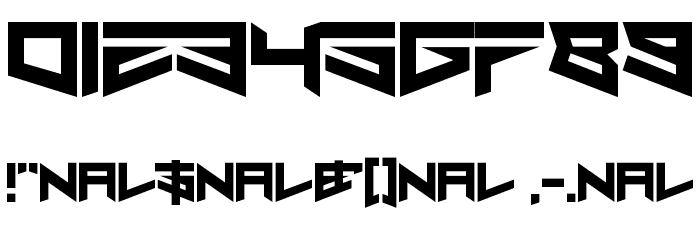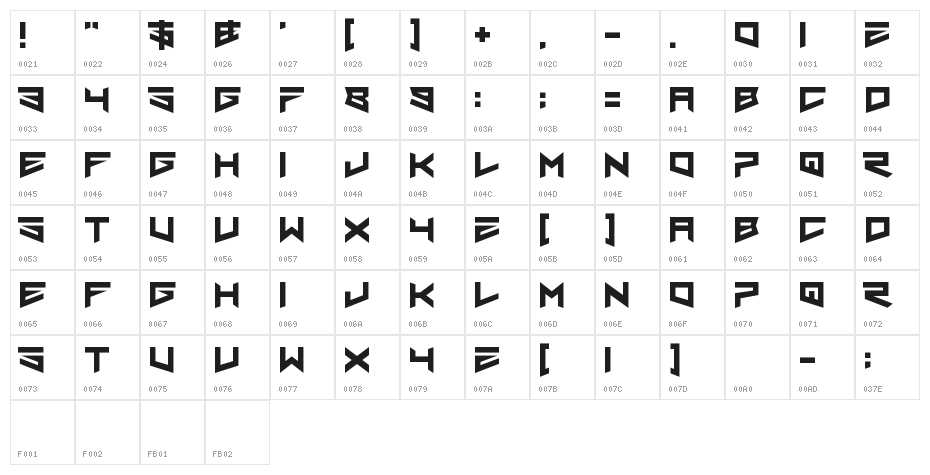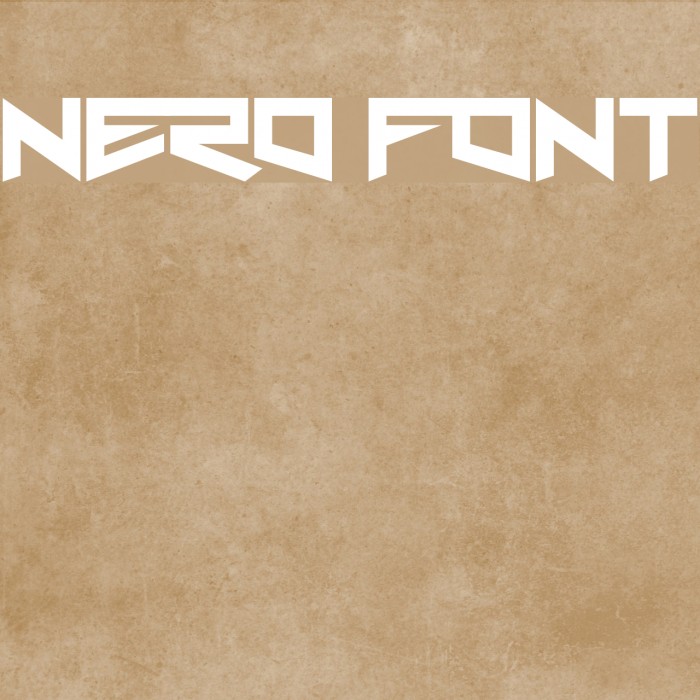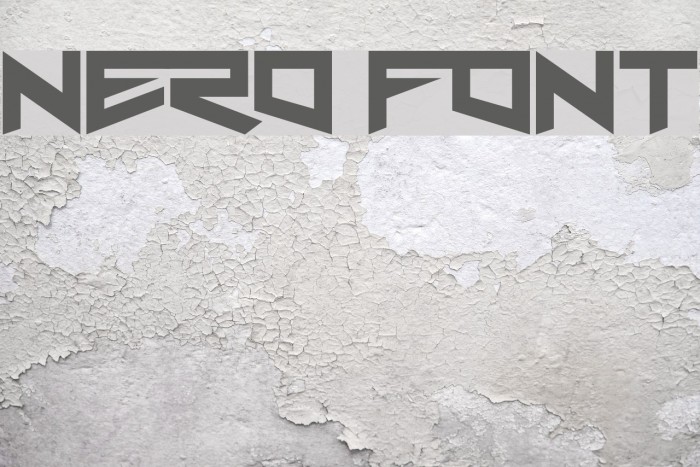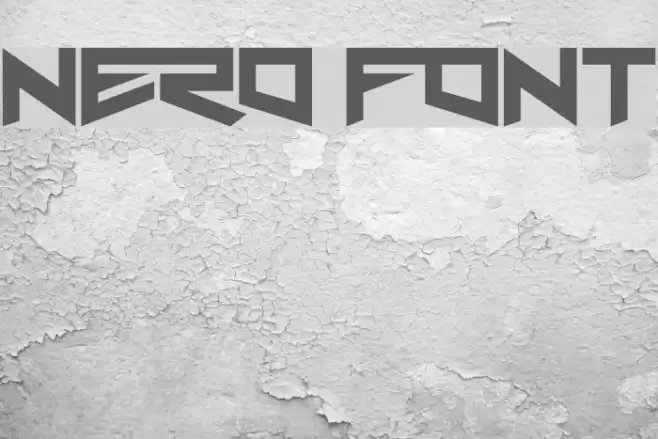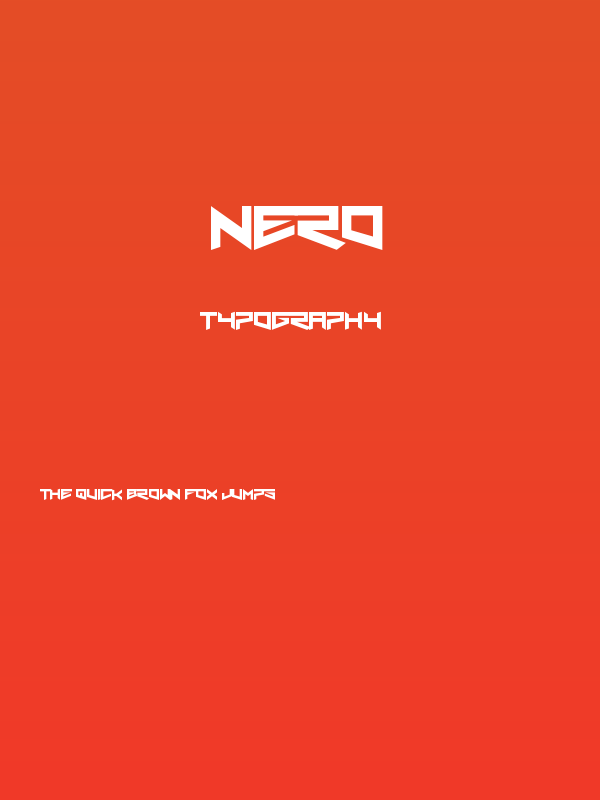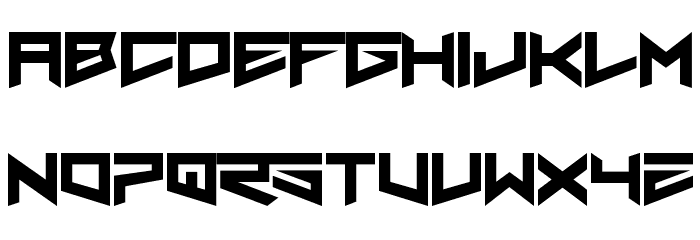
Nero Font
Nero Description
This font features a bold, angular design with sharp edges and a futuristic aesthetic. The characters are constructed with geometric precision, giving them a dynamic and aggressive appearance. The uppercase letters are particularly striking, with each character exhibiting a unique interplay of angles and lines. The lowercase letters maintain the same angular style, ensuring consistency across the typeface. Numbers and special characters are equally bold and stylized, making them stand out in any design. This font is ideal for projects that require a strong, modern, and edgy look.
Overall StyleFuturistic
Proposed ProjectsIdeal for sci-fi movie posters, video game titles, tech branding, and edgy graphic designs.